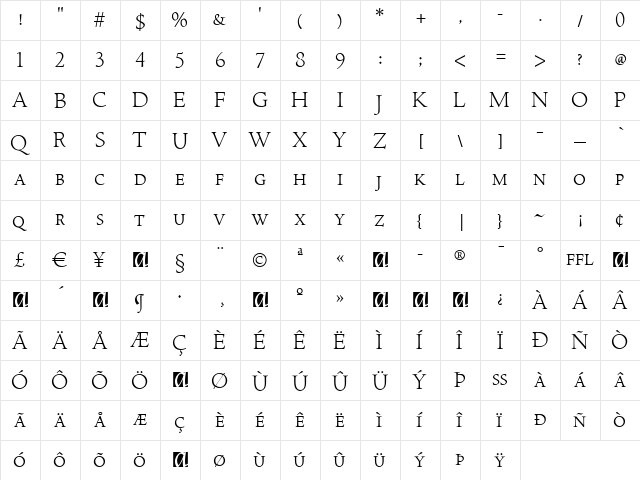
Spira-LightSmallCaps Regular Font Preview
Spira-LightSmallCaps Regular
Spira-LightSmallCaps Regular Font Details
| Designer | Andy Stockley |
Design Context for Spira-LightSmallCaps Typeface
Spira-LightSmallCaps offers clean, dependable letterforms without strong stylistic allegiance, making it a practical choice for designers who need flexibility. Its slender proportions lend an understated elegance to any composition.